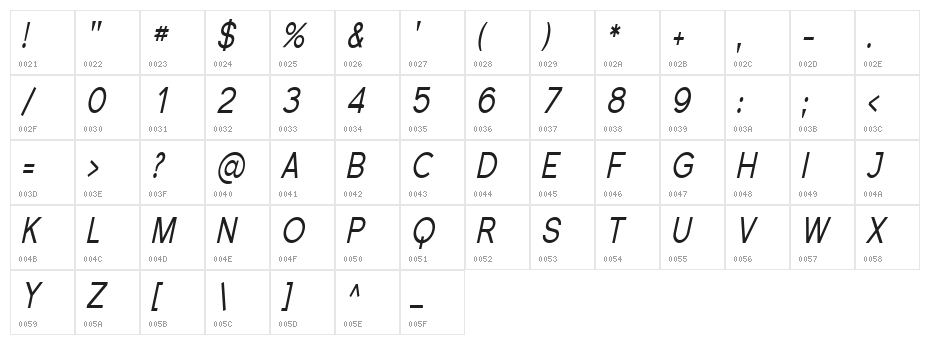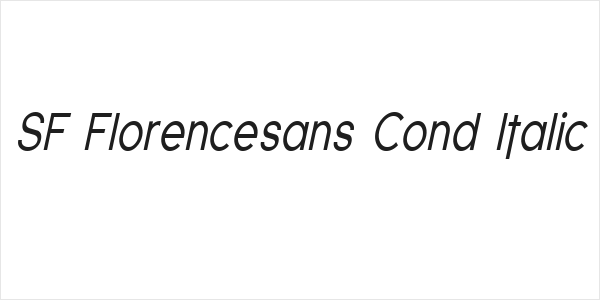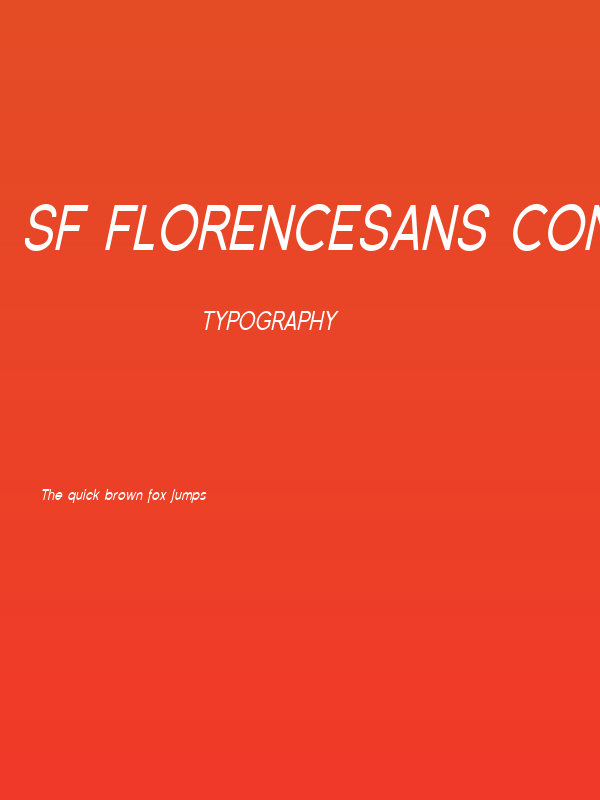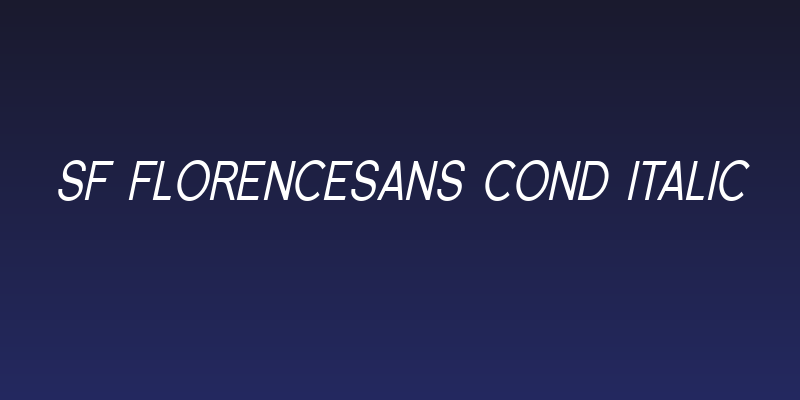
SF Florencesans Cond Italic Font
SF Florencesans Cond Italic Description
This font features a sleek, modern design with a condensed structure and italic styling. The characters are slightly slanted, giving a dynamic and forward-moving appearance. The sans-serif nature ensures clean lines and a minimalist aesthetic, making it suitable for contemporary design projects. The uniform stroke width across characters provides a consistent look, while the condensed form allows for efficient use of space. This font includes a full set of uppercase and lowercase letters, numerals, and a variety of special characters, ensuring versatility in usage.
| Use Case | Headlines, Logos, Editorial design |
| Proposed Projects | Ideal for modern branding, advertising, and editorial design projects. |